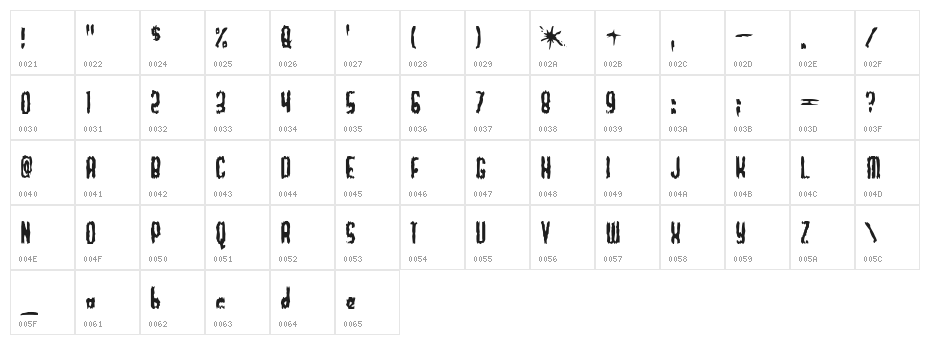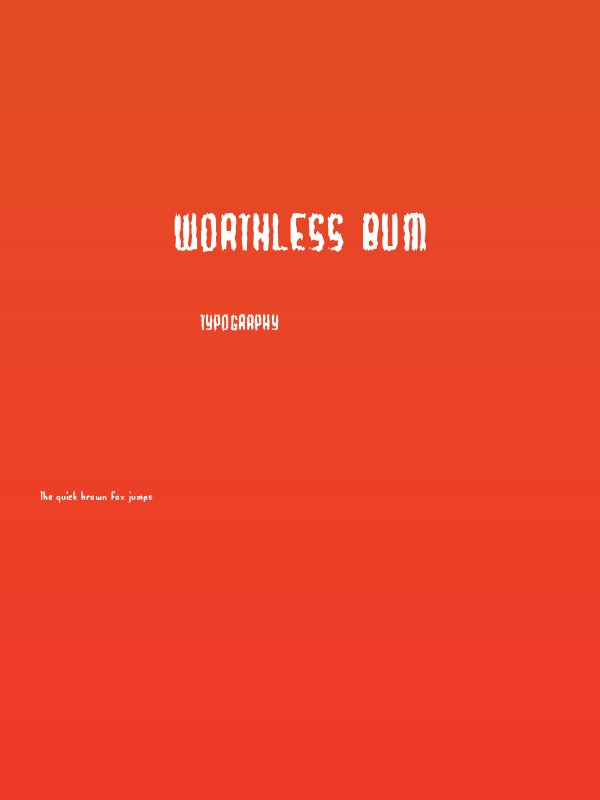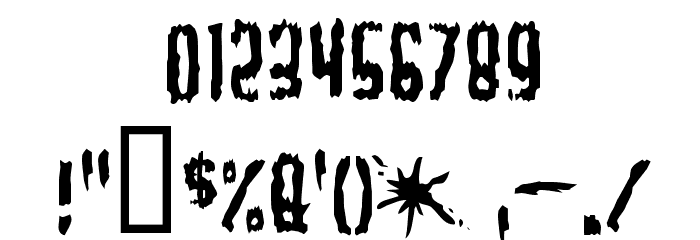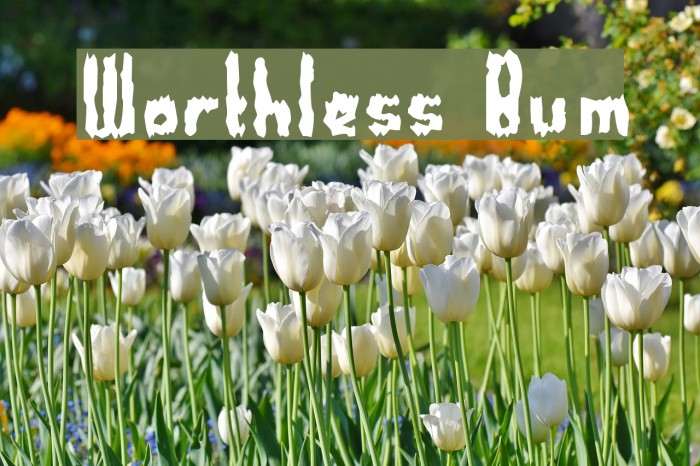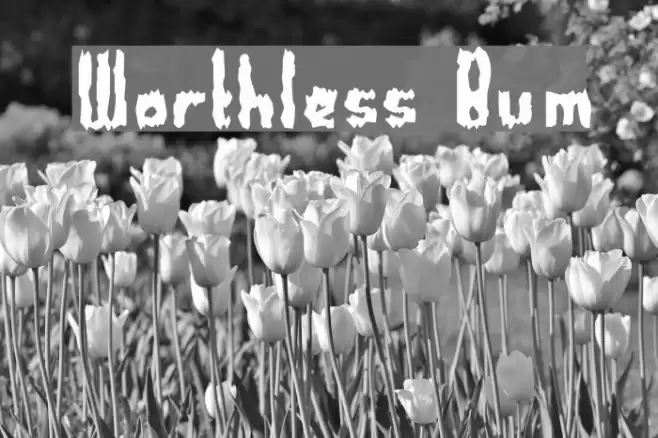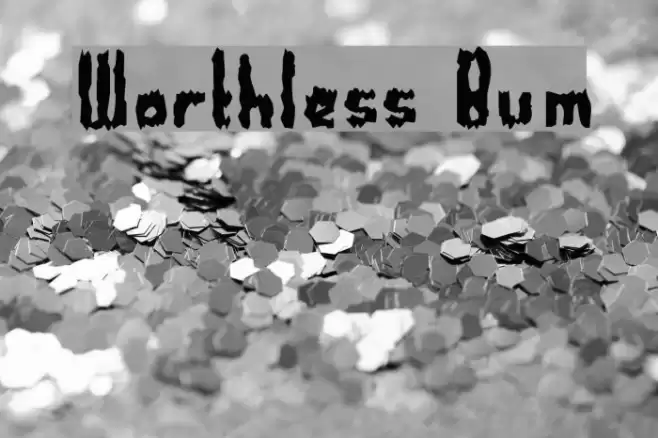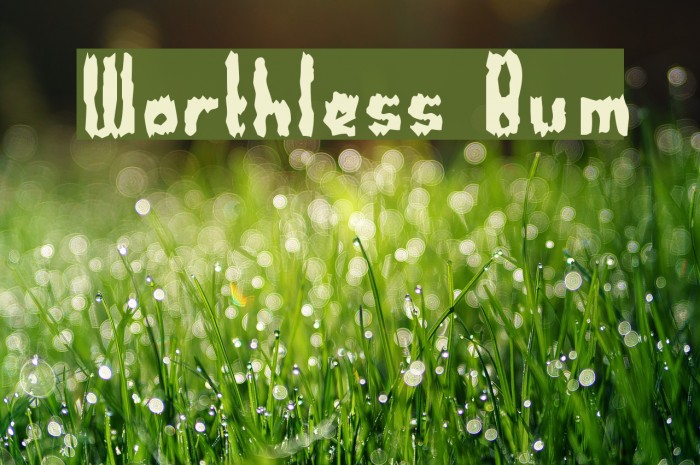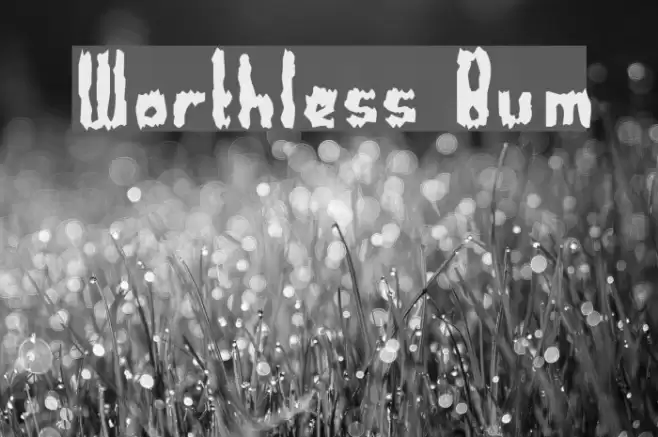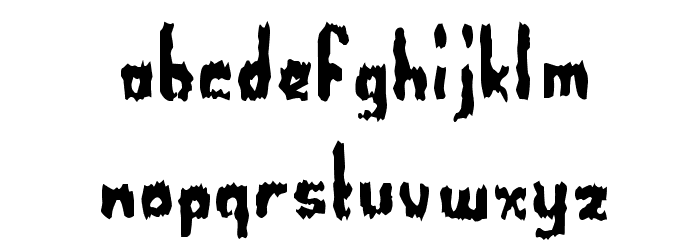
Worthless Bum Font
Worthless Bum Description
This font features a rugged, distressed appearance, reminiscent of worn or eroded surfaces. The characters have irregular edges and a bold presence, giving them a unique, eye-catching look. The uppercase and lowercase letters maintain a consistent style, with a slightly uneven baseline that adds to the font's organic feel. Numbers and special characters follow the same design principles, ensuring a cohesive appearance across all glyphs. This font is ideal for projects that require a gritty or vintage aesthetic, making it perfect for posters, album covers, or themed events.
| Overall Style | Vintage |
| Proposed Projects | Ideal for posters, album covers, themed events, or any project needing a gritty, vintage aesthetic. |